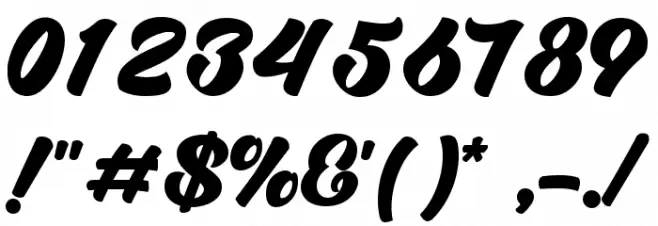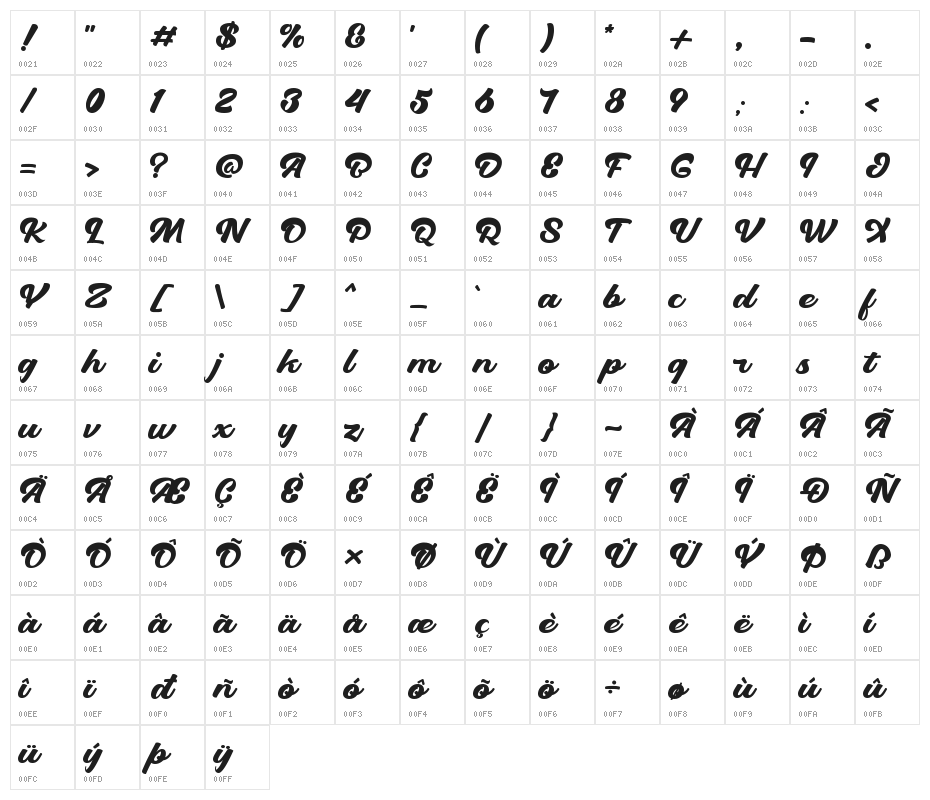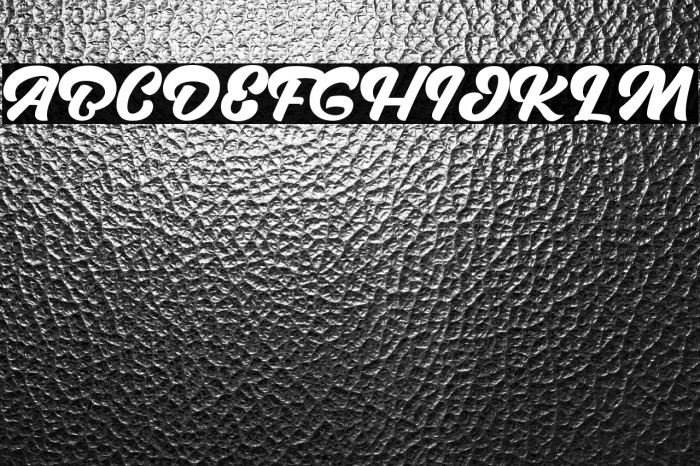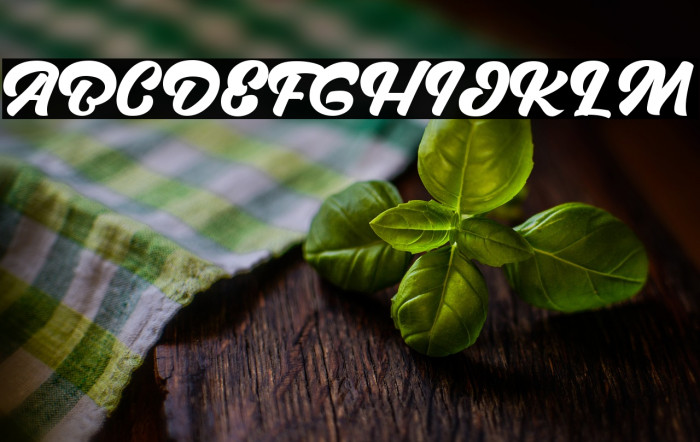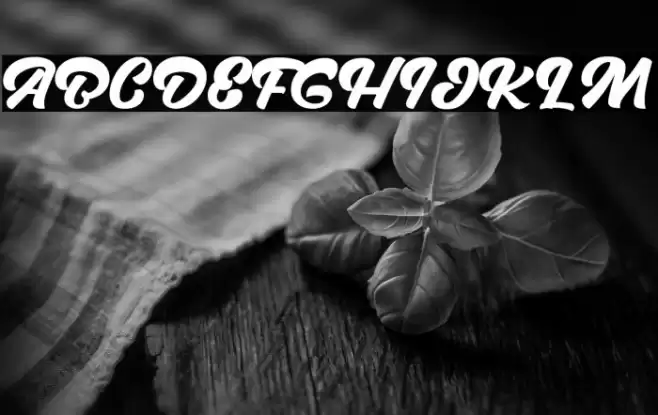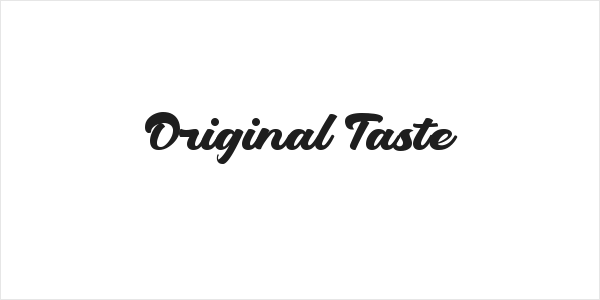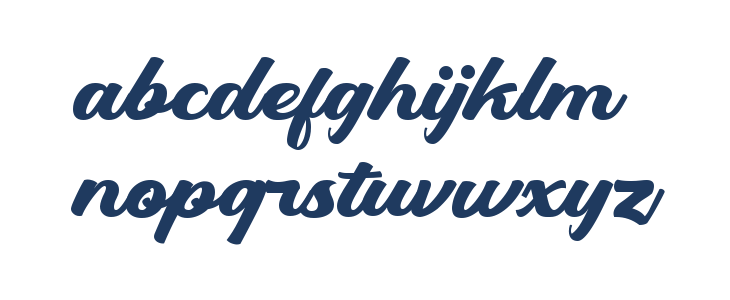
Original Taste Font
Original Taste Description
This font features a bold, cursive style with smooth, flowing lines that create a sense of movement and elegance. The characters are closely connected, enhancing the script-like appearance. The uppercase letters are slightly larger and more pronounced, while the lowercase letters maintain a consistent flow. The numbers and special characters are designed to match the overall style, with rounded edges and a playful yet sophisticated look. This font exudes a sense of creativity and flair, making it suitable for projects that require a touch of personality and charm.